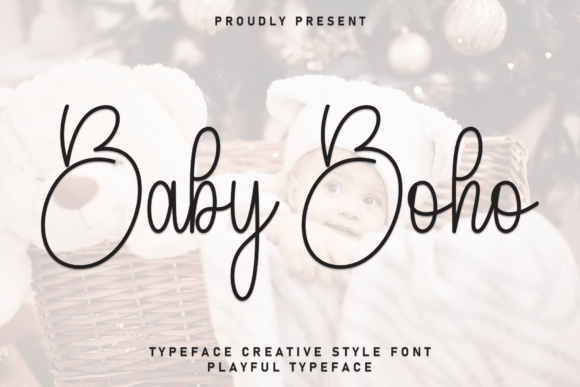
Unleash Your Creative Spark with the Baby Boho Font
Have you ever found yourself rummaging through your art supplies, searching for the perfect tool to bring your latest creative vision to life? Perhaps it’s the sound of a pen scratching against paper or the feel of a brush gliding across a canvas. For many designers, the right font can be just as inspiring – and that’s where the Baby Boho Font comes in.
This charming handwritten script font is designed to add a touch of warmth and personality to your designs, making it perfect for everything from wedding invitations to greeting cards. Its unique blend of whimsy and sophistication makes it an invaluable asset for designers looking to add a little extra magic to their work. With the Baby Boho Font, you’ll be able to breathe new life into your creative projects and leave a lasting impression on your audience.
Baby Boho Font Key Features
- Unique Characteristics: This font features a soft, hand-drawn feel with subtle imperfections, giving it a unique and organic look that’s perfect for creative and bohemian designs.
Review of Baby Boho Font
As a designer, I’ve had the chance to work with the Baby Boho Font, and I must say it’s a charming addition to any project. Here’s what I like about it: ✨ It has a soft, whimsical feel that’s perfect for creating a bohemian-inspired atmosphere. ✨ The font is highly customizable, with a wide range of weights and styles to choose from. ✨ It’s also very versatile and can be used in a variety of contexts, from blog titles to product packaging.
However, there are a few limitations to consider: ⚠️ The font can be quite busy and may not be the best choice for large blocks of text. ⚠️ Some of the characters can be difficult to read, especially at smaller font sizes. ⚠️ The font is not suitable for use in small or cramped spaces, as the letters can be easily misread.
Overall, I think the Baby Boho Font is a great addition to any designer’s toolkit. While it may have some limitations, its unique charm and customization options make it a great choice for the right project.
- Soft, whimsical feel perfect for bohemian-inspired designs
- Highly customizable with a wide range of weights and styles
- Versatile and suitable for a variety of contexts
The Baby Boho Font is ideal for creating whimsical and playful designs, such as:
– Invitations and party decorations
– Children’s book covers and illustrations
– Baby shower and nursery decor
– Handmade craft labels and packaging
Tips for Getting the Most Out of Baby Boho Font
To get the most out of Baby Boho Font, try combining it with other fonts and design elements, such as:
– Using bold and italic styles for emphasis
– Pairing with distressed or vintage textures
– Creating custom color schemes and palettes
– Experimenting with different font sizes and arrangements